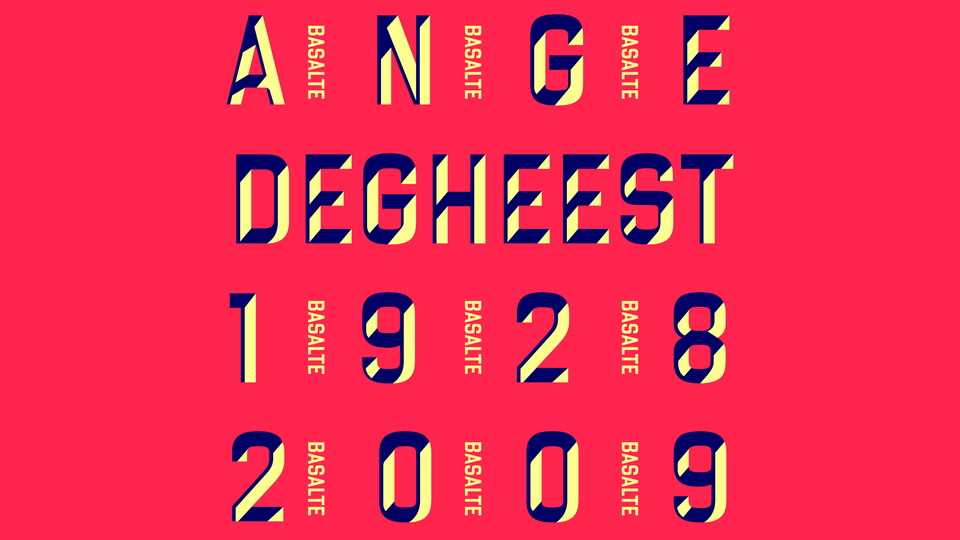
Download Basalte font, a layered display typeface, a revival of the type designed by Ange Degheest. These letterings are probably simple exercises, difficult to date, which testify to Ange Degheest’s interest for sign painting and the lettering styles specific to this field.
Designer: Benjamin Gomez